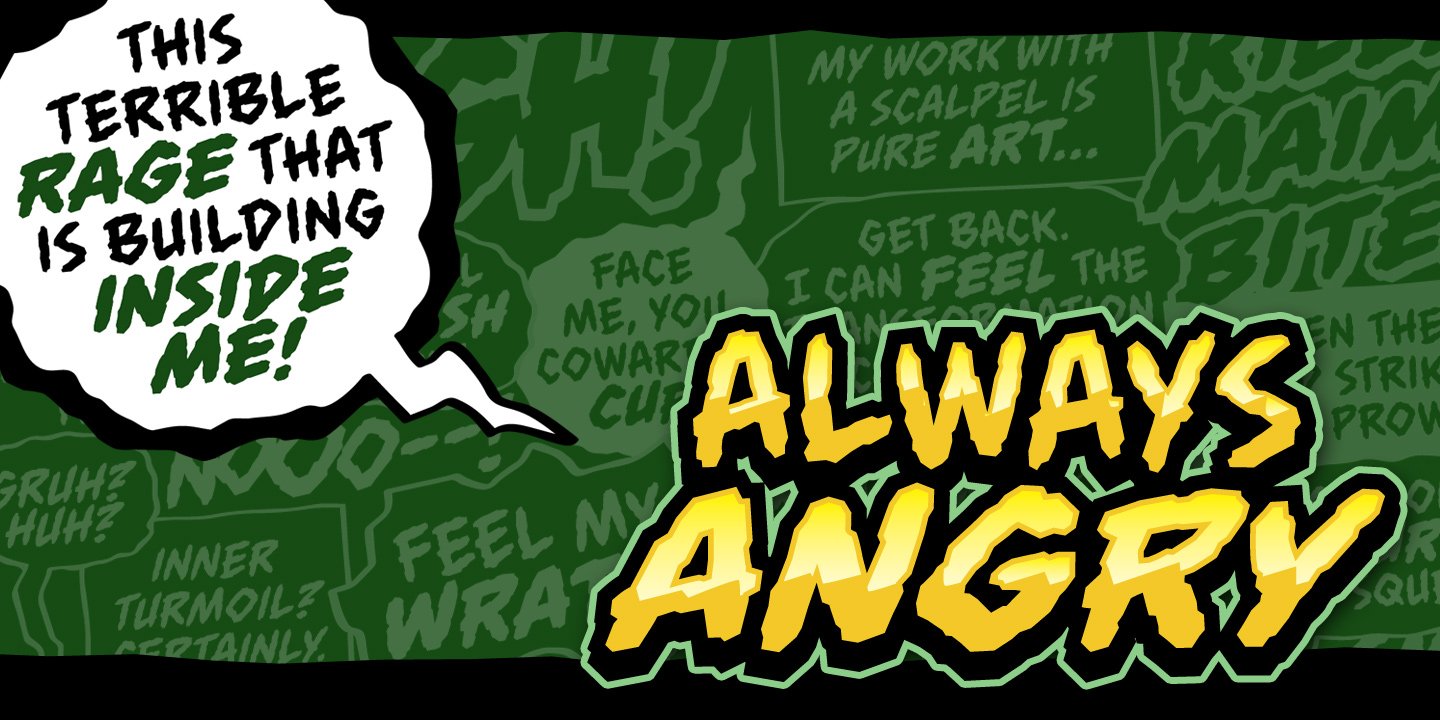
The Always Angry BB Font excels in various design applications including intense gaming interface branding, aggressive sports team marketing, bold workout gym communications, fierce competition event materials, intense energy drink packaging, powerful combat sports identities, dynamic action movie promotions, aggressive skateboard brand signage, fierce punk rock band materials, and energetic intensity projects that demand angry energy and bold sophistication.
What makes the Always Angry BB Font exciting is its fierce embodiment of intense energy and unapologetic boldness through letterforms that capture the essence of powerful aggression and the dynamic force of uncompromising determination. This typeface demonstrates exceptional intensity through carefully crafted characters that suggest the raw power of unleashed energy, the fierce determination of competitive spirit, and the bold confidence that comes from embracing intense passion and channeling aggressive motivation. The font's angry personality makes it perfect for sports brands and competitive organizations seeking to communicate fierce determination, intense energy, and the kind of aggressive passion that fuels extraordinary athletic achievement through typography that literally explodes with competitive intensity.
The Always Angry BB Font family typically includes bold weight variations that enhance the aggressive aesthetic, featuring intense styling options and extended character sets optimized for competitive communications and high-energy applications. These family options often include fierce alternates, aggressive symbols, and intense decorative elements that provide designers with comprehensive tools for creating authentically powerful typography that celebrates competitive spirit while maintaining contemporary design appeal and athletic credibility.
Sports professionals and competitive lifestyle brands consistently choose Always Angry BB Font Free Download for projects requiring typography that communicates fierce authenticity and competitive intensity. This typeface delivers exceptional performance in sports marketing, competitive branding, and high-energy communications where establishing power and creating intense atmosphere is essential for competitive engagement. The font's angry character makes it particularly effective for gaming and extreme sports applications. Download Always Angry BB Font Free Download today to access this intensely powerful typeface that transforms competitive communications with its fierce energy and aggressive sophistication, creating compelling athletic experiences that celebrate the magnificent power of competitive determination while maintaining the intense passion that defines authentic competitive culture and athletic excellence.